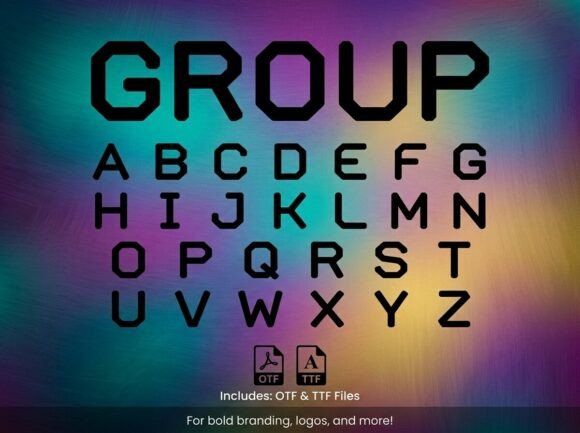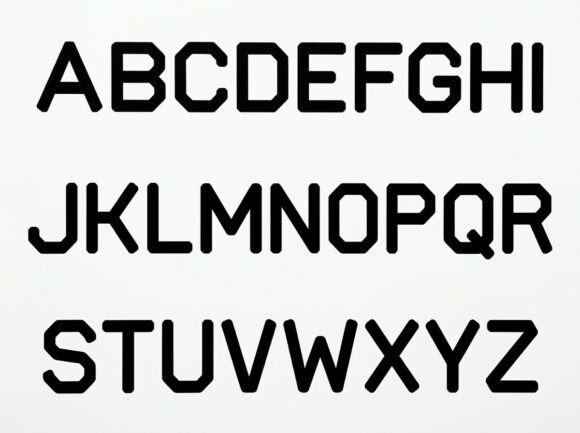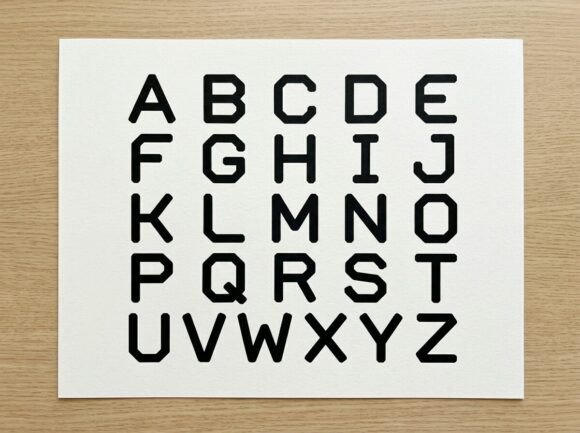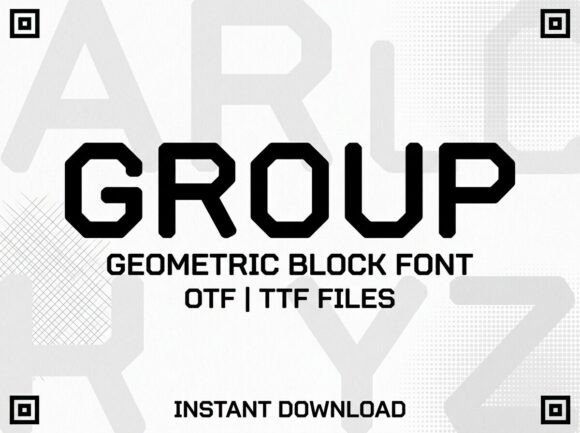
Introducing Group Font: A Stunning Decorative Display Font
Are you tired of using the same old fonts for your designs? Do you want to make a statement and break away from the ordinary? Look no further than Group Font, a unique and artistic display font that’s sure to turn heads. In this article, we’ll take a closer look at what makes Group Font special and how it can elevate your designs.
A Font that’s Truly One-of-a-Kind
Group Font is a decorative display font that’s designed to be the center of attention. With its unique artistic elements and strong visual personality, this font is perfect for creators who want to make a bold statement. Whether you’re working on a logo, headline, or packaging design, Group Font is versatile enough to make a lasting impression.
Before you make a purchase, it’s essential to note that Group Font is an ALL-CAPS (Uppercase Only) display typeface. This means that it does not include lowercase letters. However, this is by design, as Group Font is specifically created for high-impact headlines, logos, and decorative initials where every letter is a work of art.
Group Font is perfect for designers and crafters who want to add a touch of elegance and sophistication to their work. With its unique and artistic elements, this font is ideal for:
• Bold Headlines: Make a statement with eye-catching headlines that grab attention and draw the reader in.
• Artistic Logos: Create a lasting impression with a custom logo that showcases your brand’s personality and style.
• Creative Packaging: Stand out on store shelves with packaging designs that feature Group Font’s unique and decorative style.
Tips for Using Group Font
To get the most out of Group Font, here are a few tips to keep in mind:
• Use it sparingly: Group Font is a bold and attention-grabbing font, so use it sparingly to avoid overwhelming your design.
• Experiment with colors: Group Font looks great in a variety of colors, so don’t be afraid to experiment and find the perfect hue for your design.
• Pair it with other fonts: Group Font pairs well with a variety of other fonts, so try combining it with a simpler font to create visual interest.
In conclusion, Group Font is a stunning decorative display font that’s perfect for designers and crafters who want to make a bold statement. With its unique artistic elements and strong visual personality, this font is sure to turn heads. Whether you’re working on a logo, headline, or packaging design, Group Font is versatile enough to make a lasting impression. So why wait? Purchase Group Font today and take your designs to the next level!